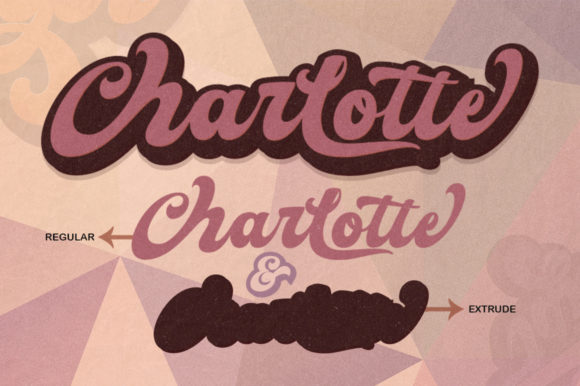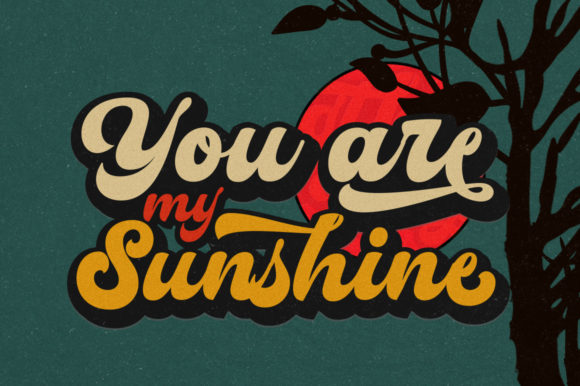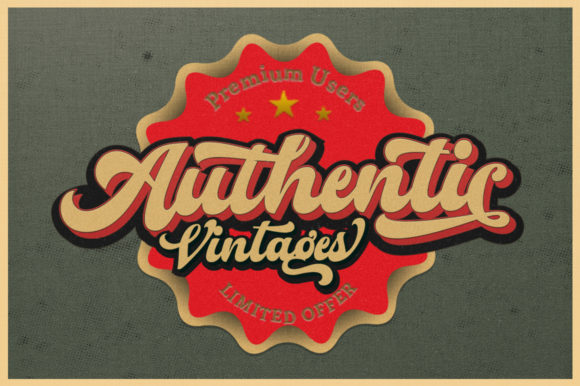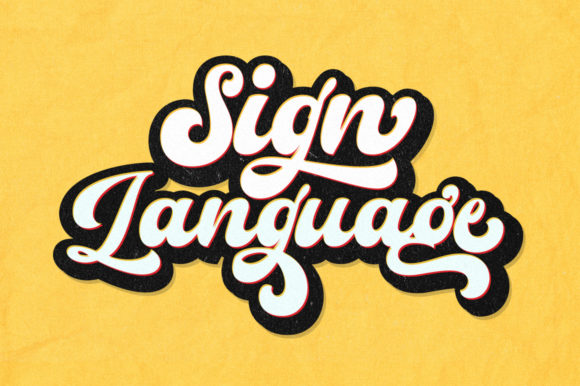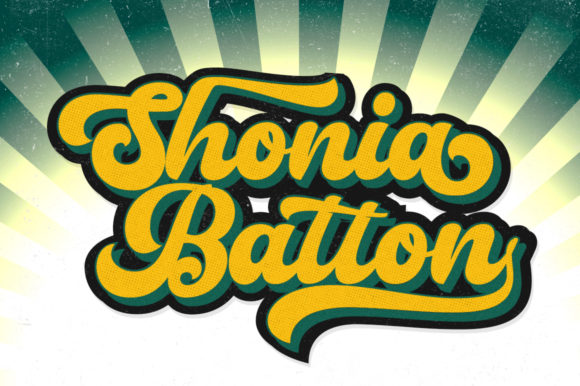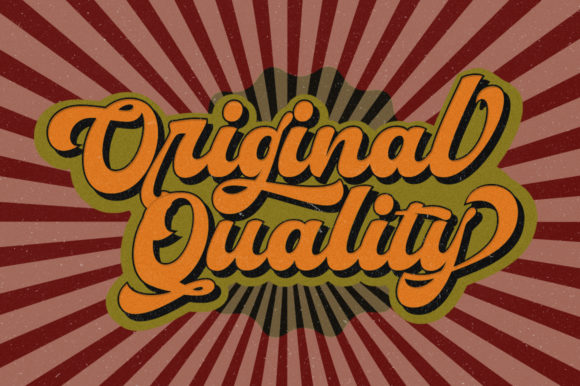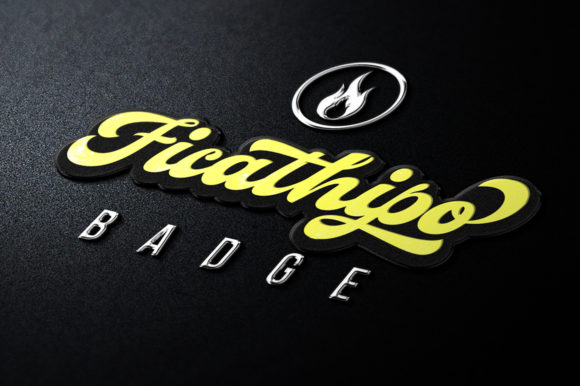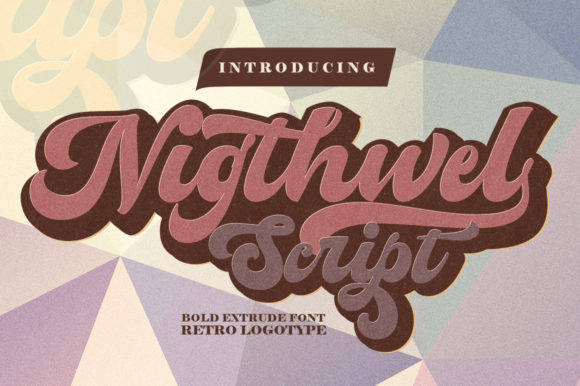
Nigthwel Script Font
About Nigthwel Script Font
Nigthwel Script is a bold and fun script font with a lot of authentic charm. Fall in love with its vintage vibe!